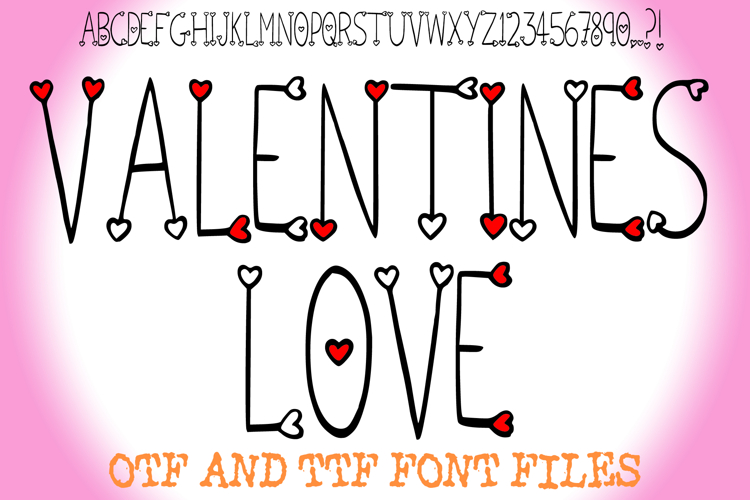
Valentines Love Sweetheart Font Heart Cute Typeface Letters
Fall in love with your lettering with Valentines Love Sweetheart Font, a whimsical and romantic typeface designed to add a touch of sweetness to every project! This handmade display font features clean, hand-drawn uppercase characters adorned with charming hearts at the tips of every letter stroke.
Whether you are crafting a heartfelt note or a professional holiday advertisement, this font brings a custom, artisanal feel to your typography.
Ideal For:
Valentine’s Day Projects: Perfect for handmade cards, romantic gift tags, and "Be Mine" banners.
Wedding & Event Stationery: Create sweet invitations, seating charts, and anniversary announcements.
Teacher & Classroom Resources: Ideal for classroom bulletin boards, student reward stickers, and holiday-themed worksheets.
Crafting & Apparel: The bold, clean lines make it a dream for vinyl cutting on Cricut or Silhouette machines for T-shirts and mugs.